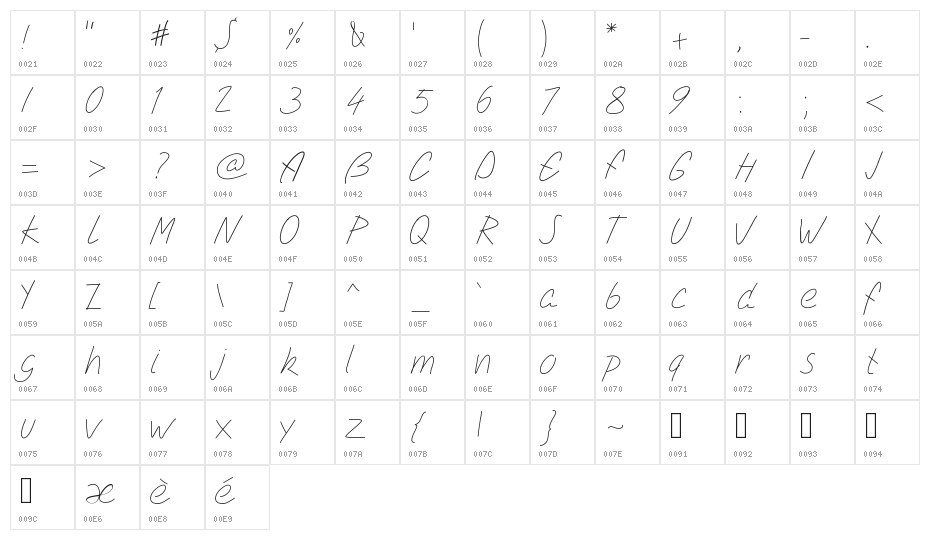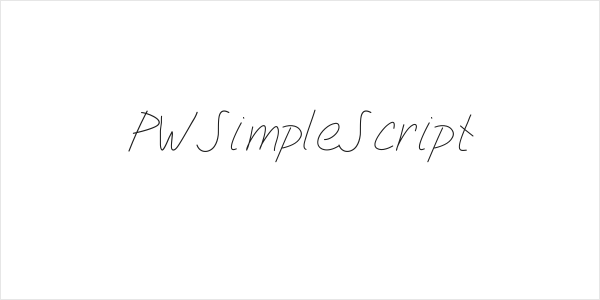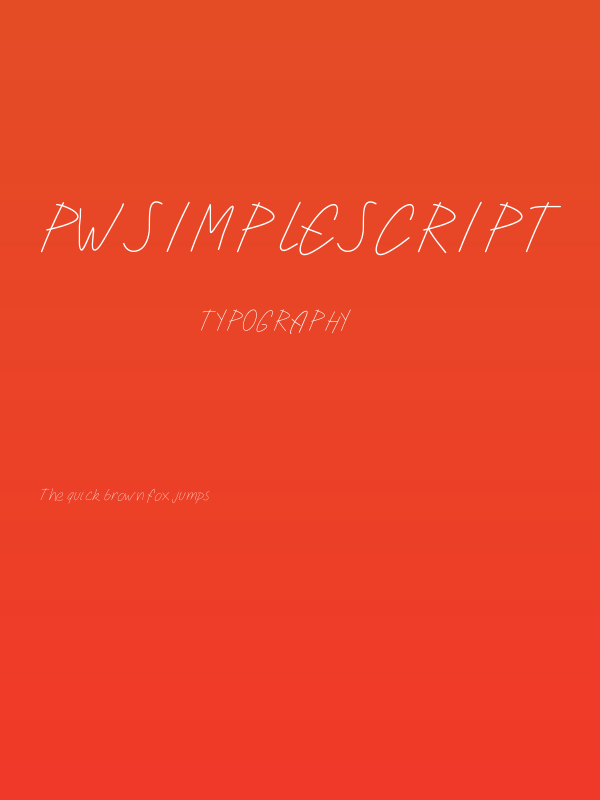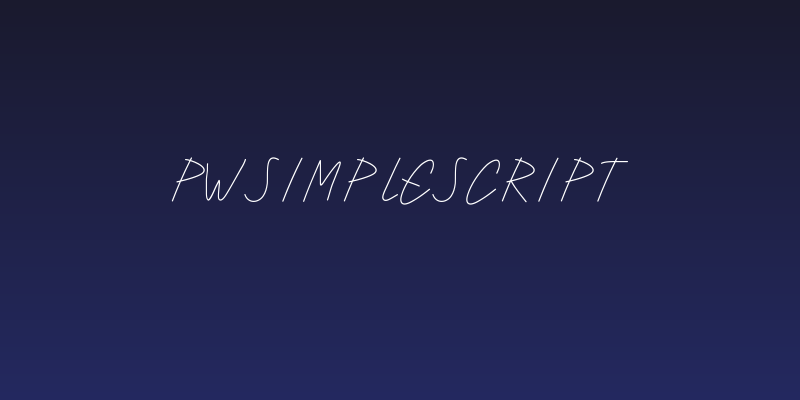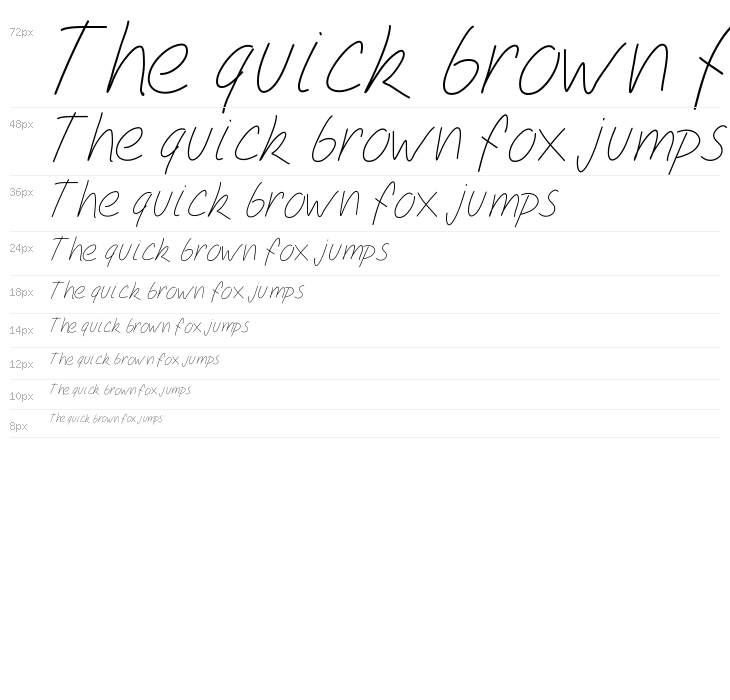
PWSimpleScript Font
PWSimpleScript Description
This font exudes a casual and friendly handwritten style, characterized by its fluid and continuous strokes. The letters are slightly slanted, giving it a dynamic and informal appearance. The uppercase and lowercase letters maintain a consistent flow, with rounded edges and smooth curves. The numerals and special characters follow the same style, ensuring uniformity across the font. Its simplicity and elegance make it versatile for various design projects, where a personal touch is desired.
| Overall Style | Casual |
| Use Case | Logos, Invitations, Social Media Graphics |
| Proposed Projects | Ideal for personal invitations, greeting cards, casual branding, or social media graphics. |